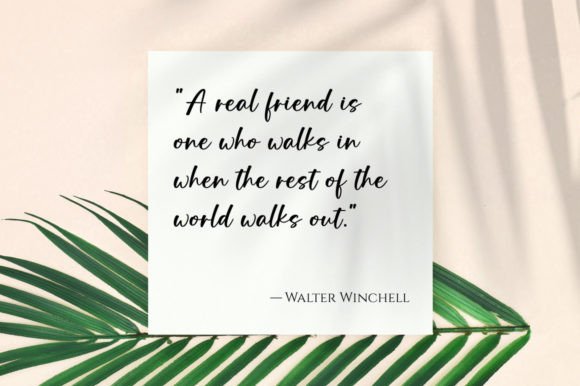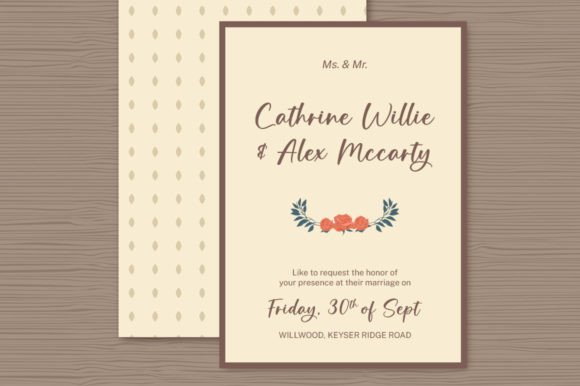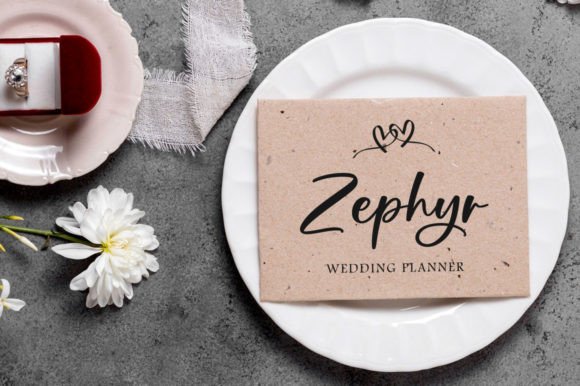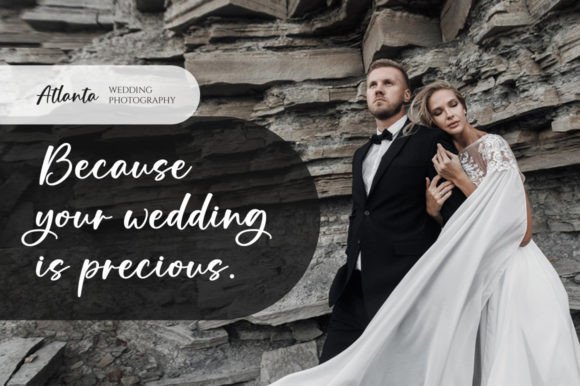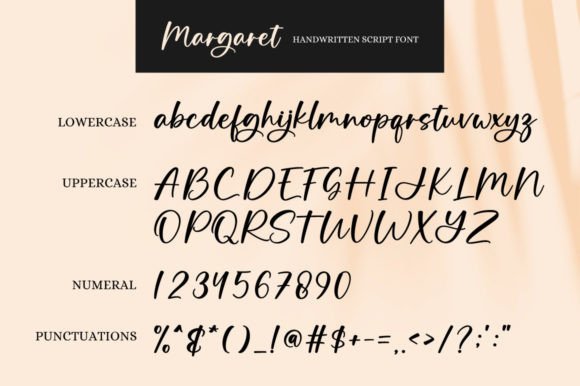
Margaret Font
About Margaret Font
Margaret is a delicate, elegant, and flowing handwritten font. It has beautiful and well-balanced characters and as a result, it matches a wide pool of designs.